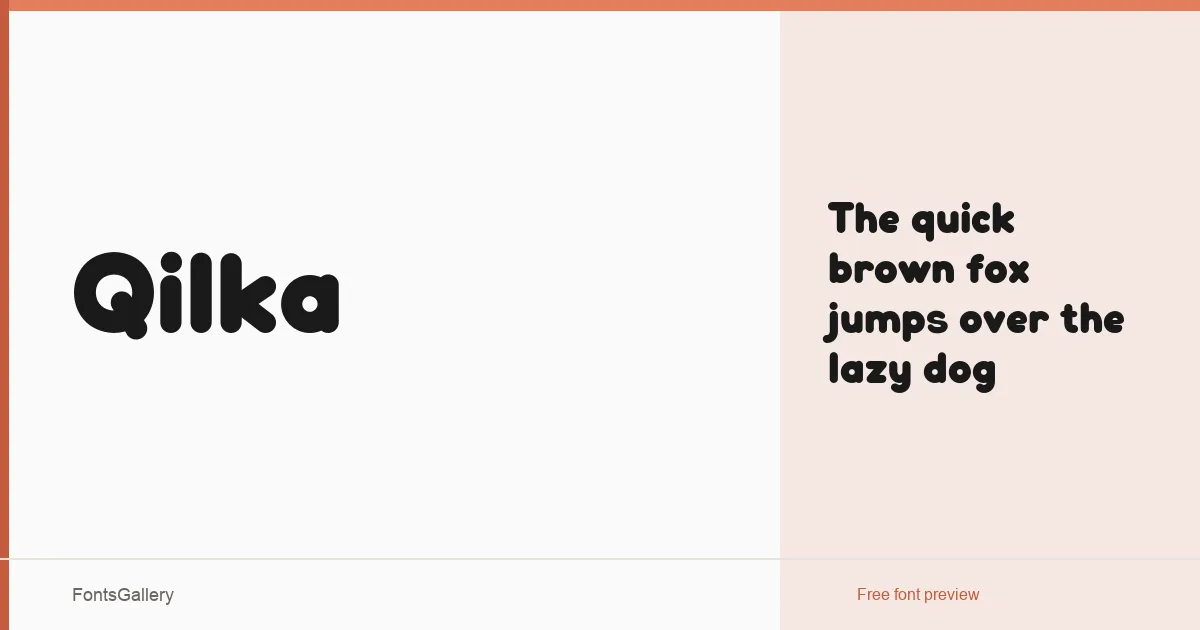
About Qilka Font
Qilka is a display typeface crafted by Rahagita Studio, designed to make an immediate visual impact across a wide range of creative projects. Its playful yet bold character gives it a modern energy that stands out in today's design landscape. Whether used for personal passion projects or expressive creative work, Qilka brings a confident personality to any composition.
Qilka's letterforms embrace a bold, modern sensibility with a playful twist that keeps the design feeling fresh and dynamic. The display-oriented construction means each character is crafted for maximum visual presence at large sizes, with distinctive strokes and proportions that draw the eye. The balance between boldness and playfulness gives Qilka a versatile yet unmistakable character.
Qilka is ideally suited for logos, posters, headlines, branding projects, and social media graphics where strong visual impact is the priority. Its bold display nature makes it particularly effective when set large, commanding attention in both print and digital contexts. For a well-balanced typographic combination, consider pairing Qilka with the clean neutrality of Helvetica or the complementary style of Aresink.